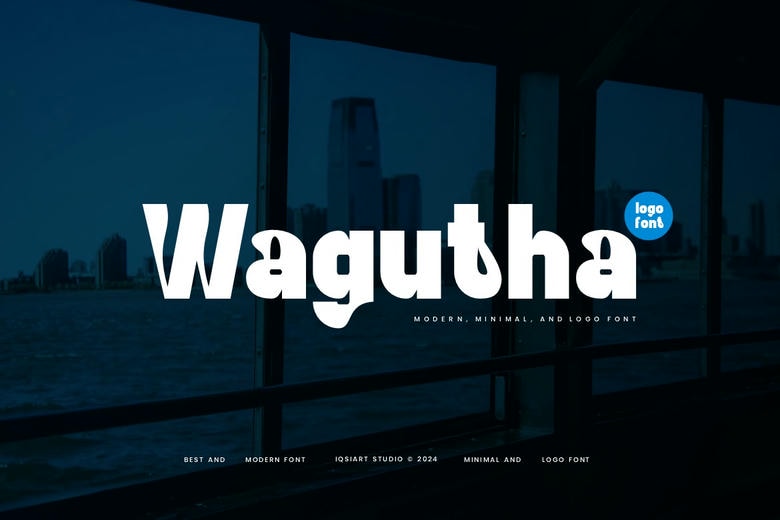
Wagutha Font
Wagutha is a bold and stylish logo and display font with a unique, authentic feel. Its thick, clean lines make it perfect for eye-catching designs, branding, and modern logos. The font has a confident look, making it stand out while staying simple and easy to read. Ideal for adding a touch of creativity to any project.
Wagutha Sans Serif Font